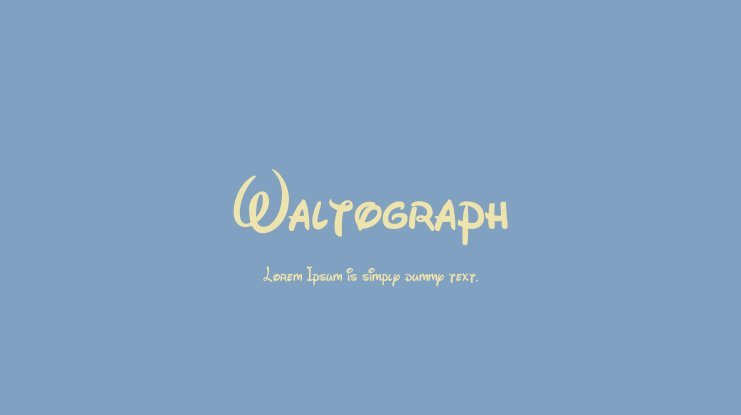
Waltograph Font
Waltograph Font is a high quality Script font that is designed by Justin Callaghan and is available for free download and personal use. The free version provides all uppercase and lowercase letters and a few special characters too.